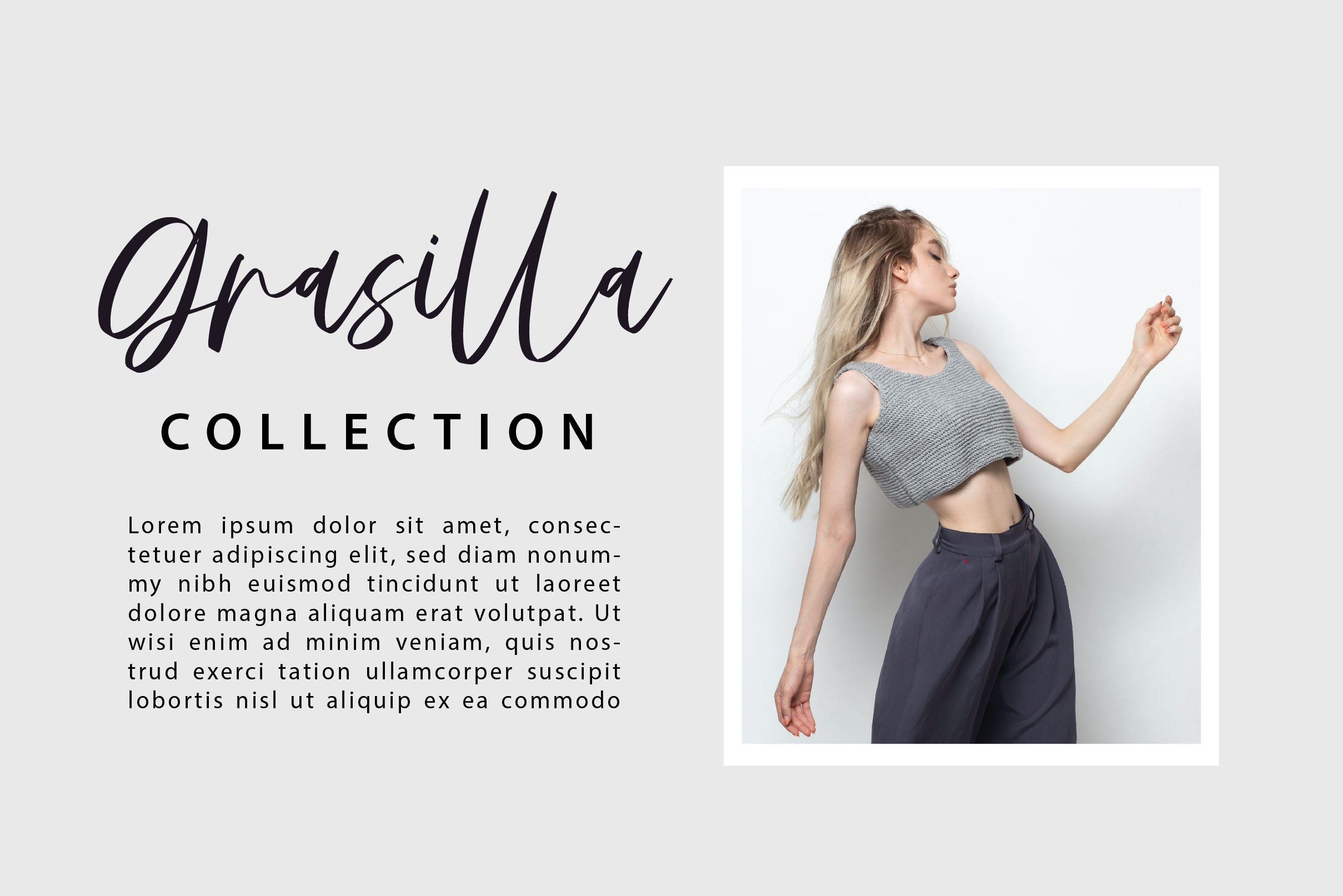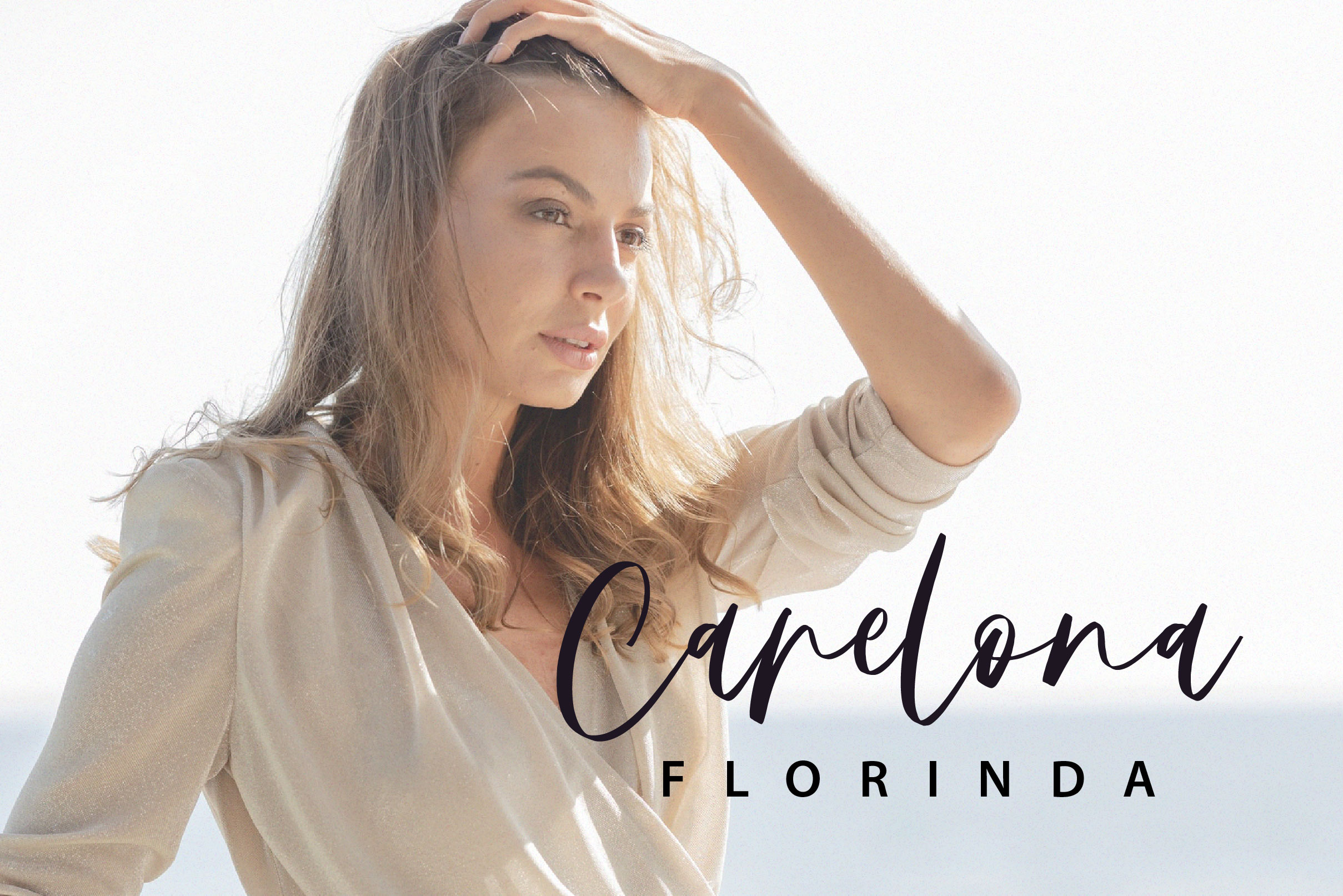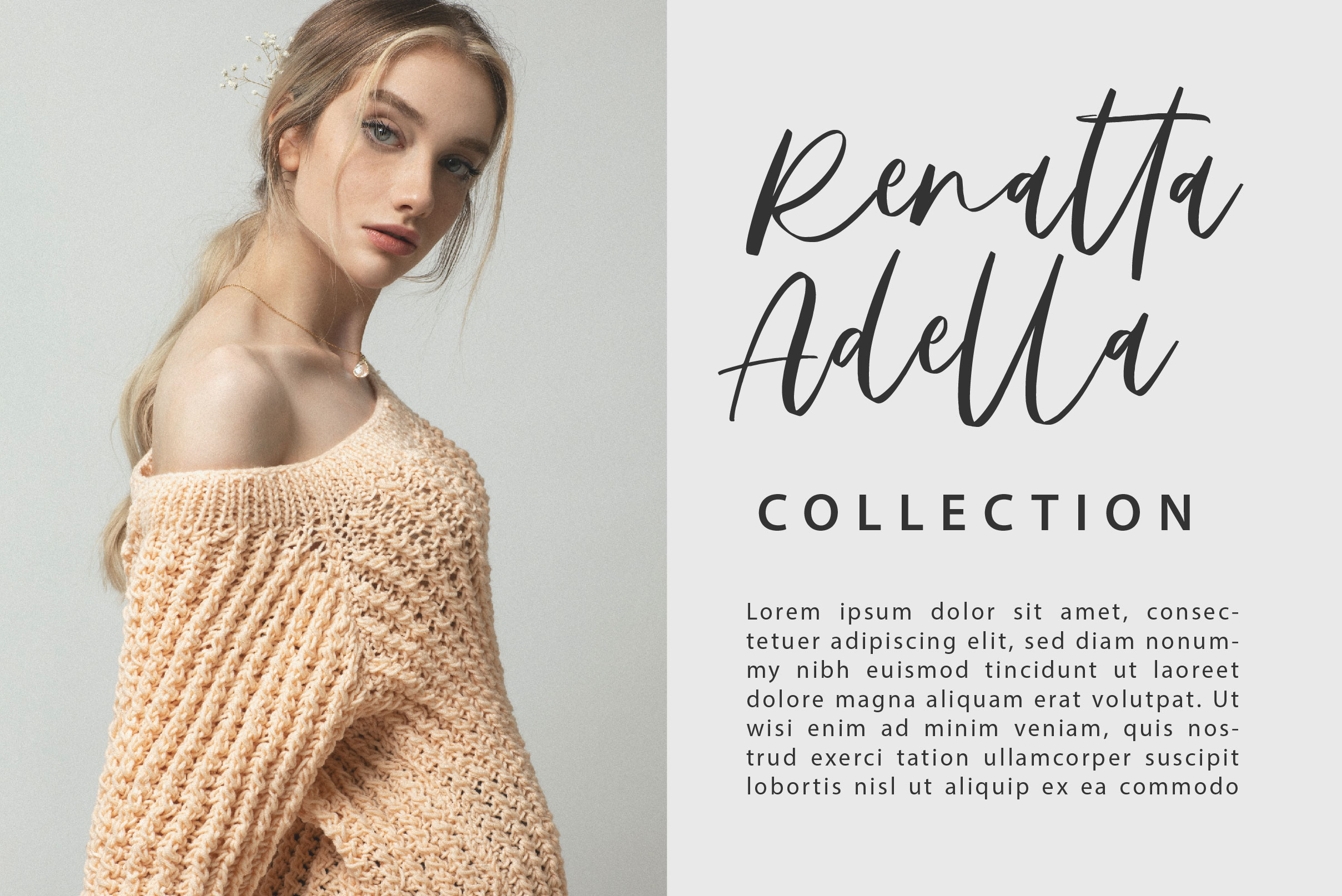
Florinda Font
Florinda Script Font is a stylish, elegant and flowing handwritten font. It is the best choice for creating eye catching logos, branding and quotes. Every letter has a unique and beautiful touch, which will make your design come alive!
– Uppercase, Lowercase, Numeral & Punctuation
– Alternate Letters, Ligature & Swash/Tail